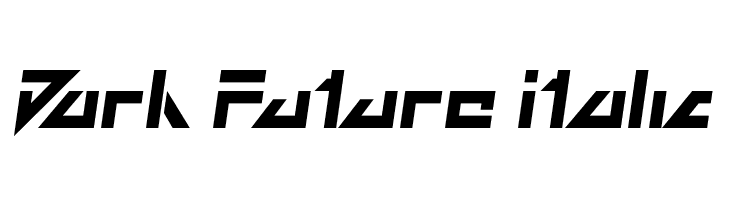
A bold, hand-drawn font with sharp, angular strokes and a dynamic, graffiti-like style.
A bold, distressed font with a grunge, film strip aesthetic.
An organic, branch-like font with a dark, mysterious aesthetic.
An intricate, nature-inspired decorative font with vine-like embellishments.
A decorative, bold font with a twisted, shadowed design ideal for dramatic displays.
A bold, decorative font with an eerie, twisted branch design.
A decorative font with elongated vertical strokes and geometric patterns.